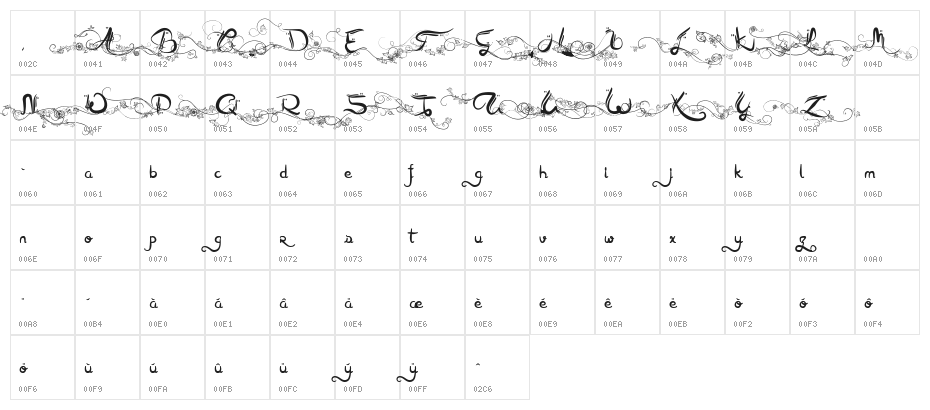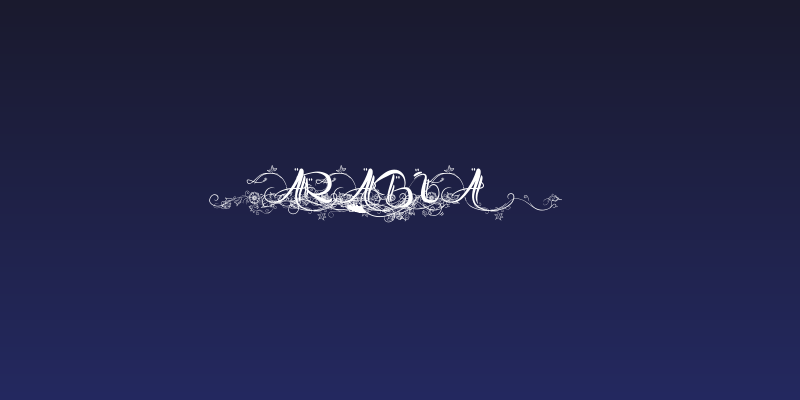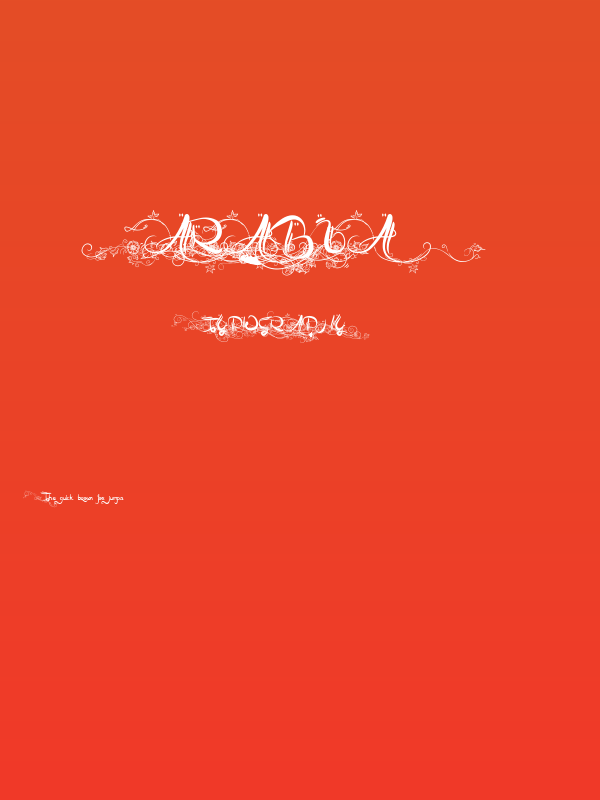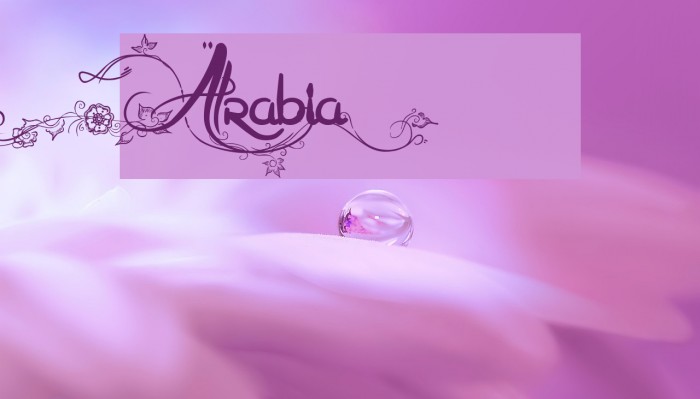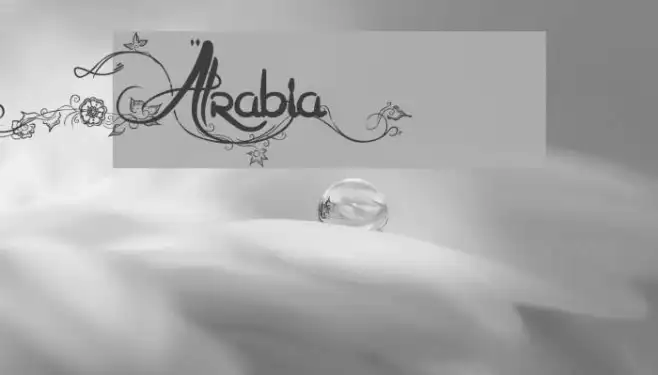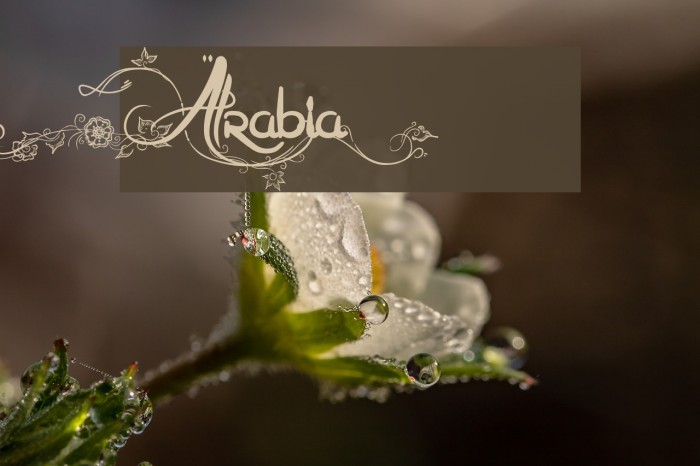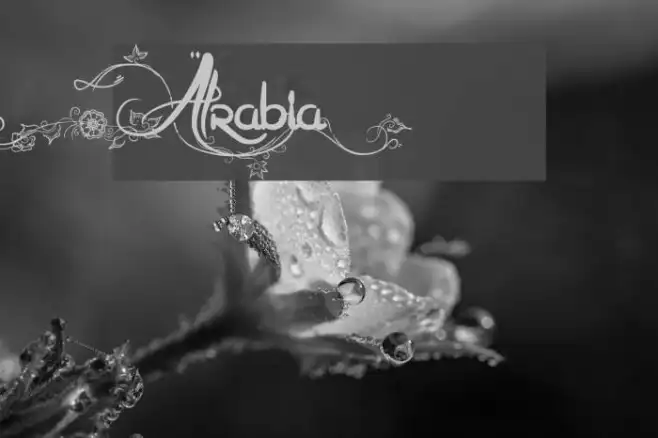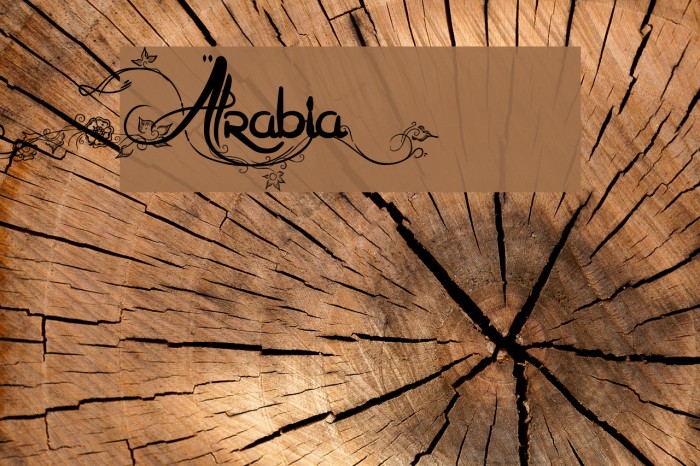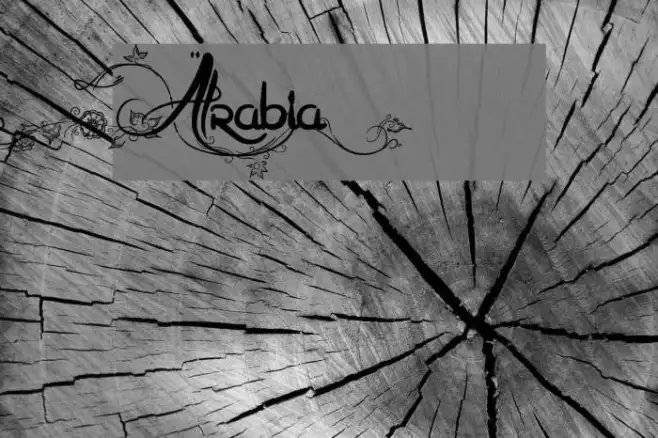
Arabia Font
Arabia Description
This font features an intricate and decorative style, characterized by elaborate swirls and flourishes that extend from each letter. The uppercase letters are particularly ornate, with embellishments that give them a whimsical and artistic appearance. The lowercase letters maintain a more simplified form but still incorporate subtle decorative elements. This font exudes a sense of elegance and creativity, making it suitable for projects that require a touch of sophistication and flair. The overall design is reminiscent of calligraphic styles, with a modern twist that makes it stand out.
| Proposed Projects | Ideal for wedding invitations, greeting cards, artistic posters, and branding that requires a unique and elegant touch. |